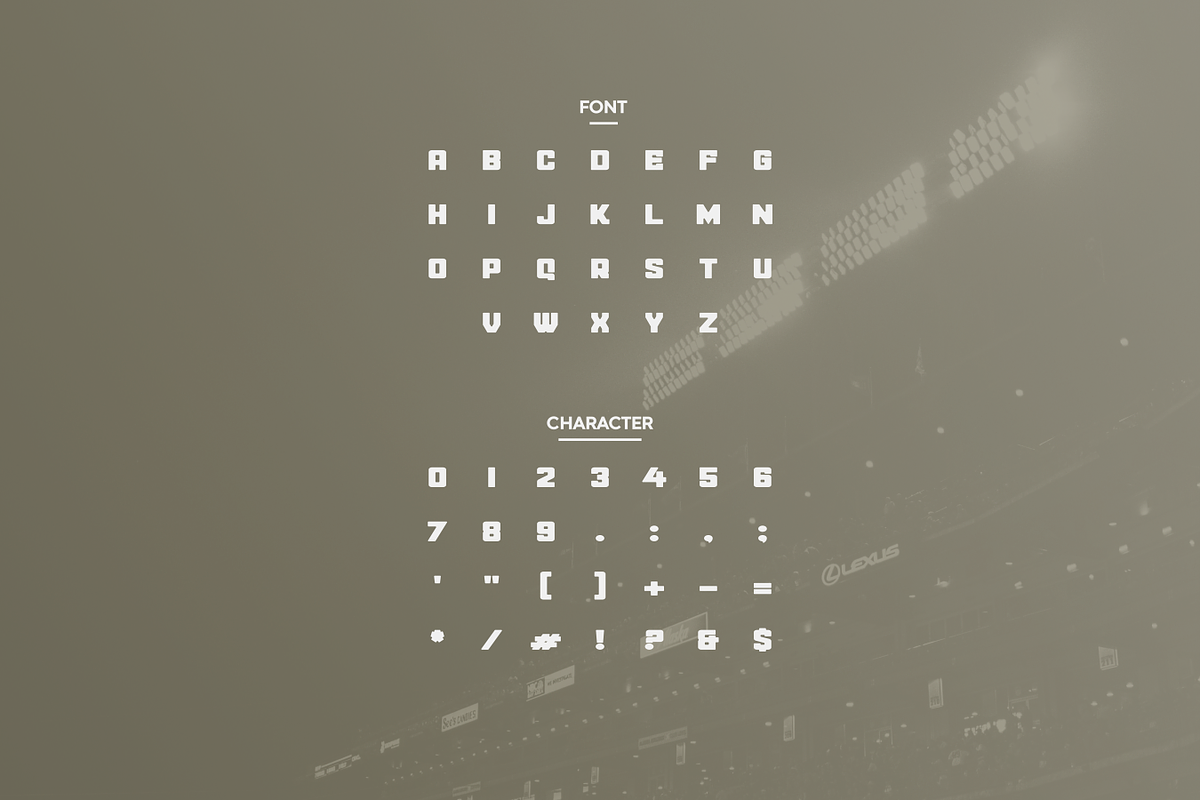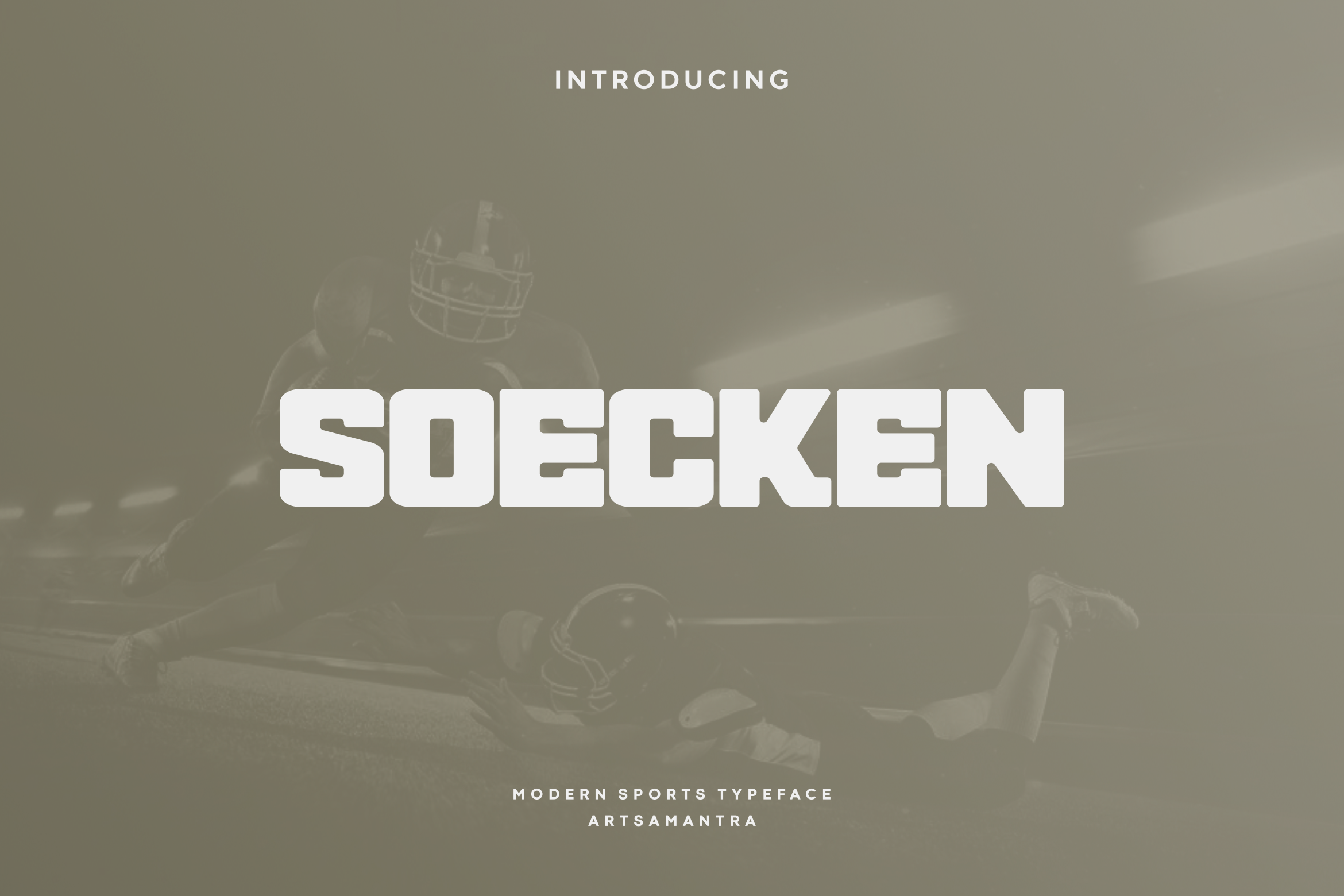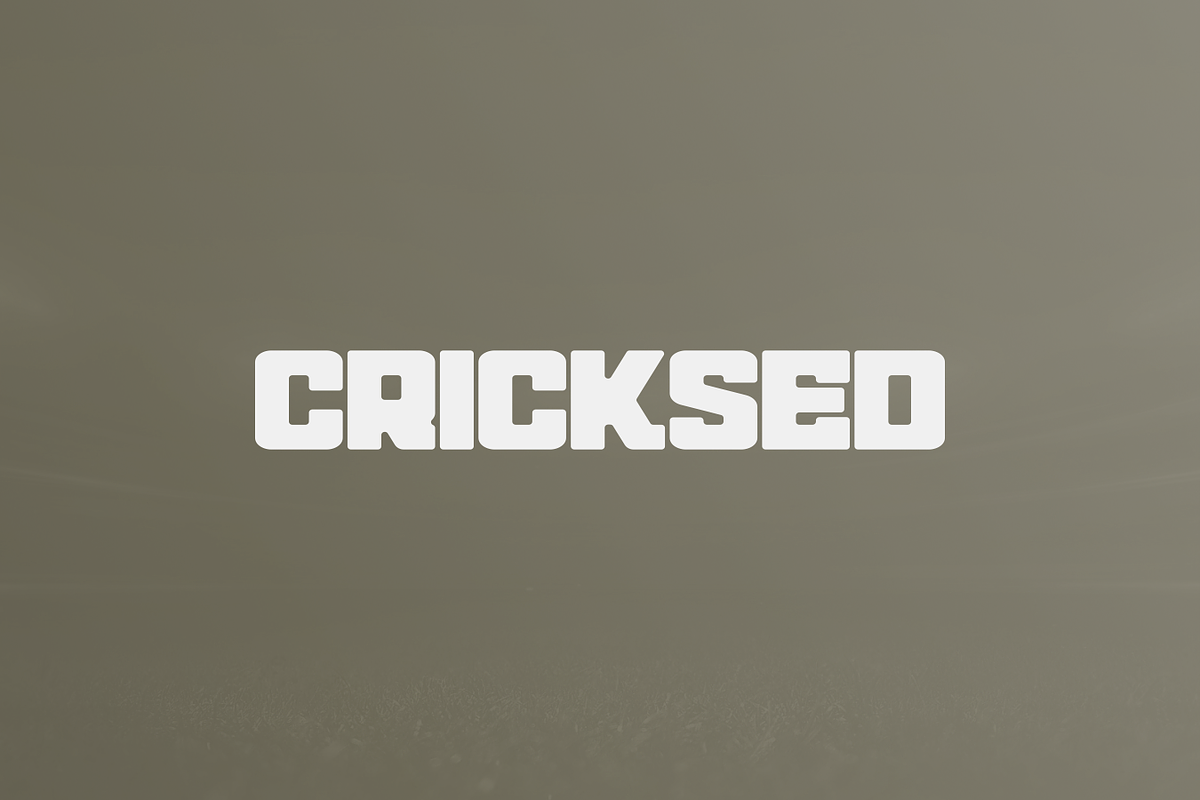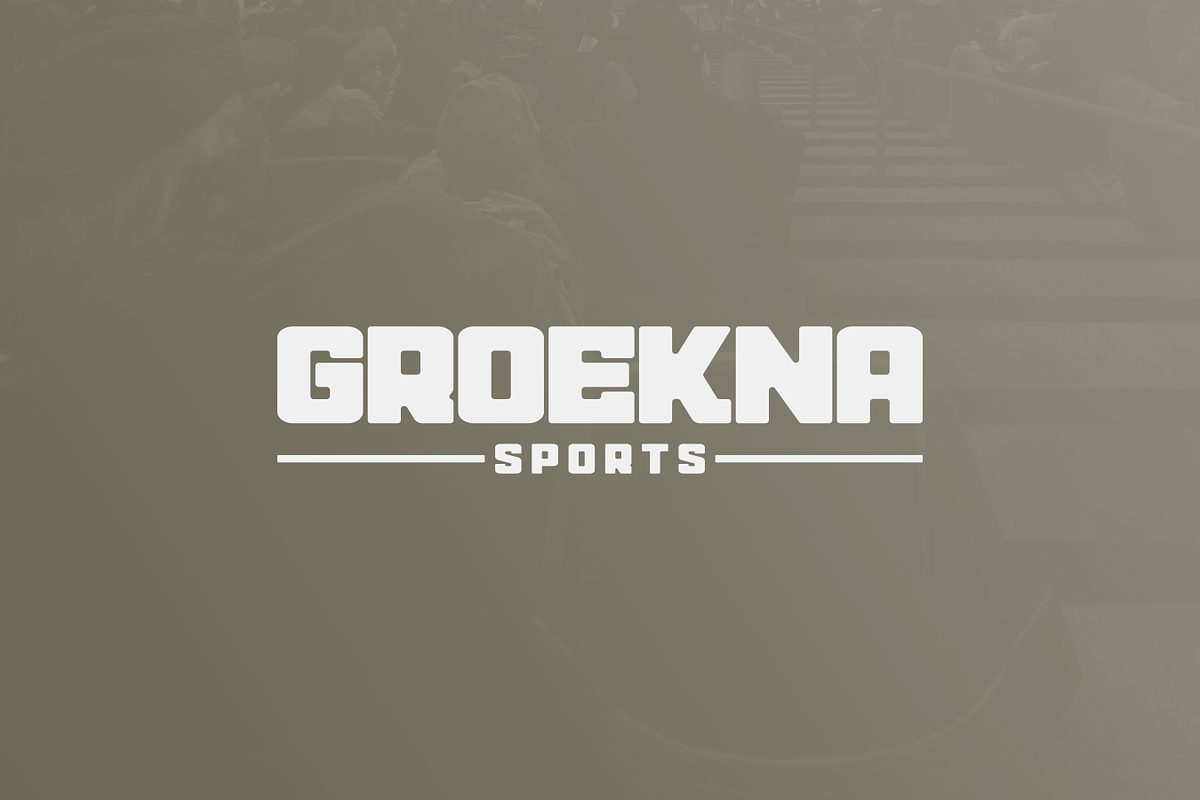
Soecken - Modern Display Typeface
Soecken is a sports font, designed to grab attention and accentuate any project that calls for a bold and powerful look, built in all caps to create a vibrant touch to your designs. Perfect for sports design, logo, headline, poster, game, book cover, title, magazine, brochure and many other projects. Add this font to your list of creative ideas and see how it makes it stand out!